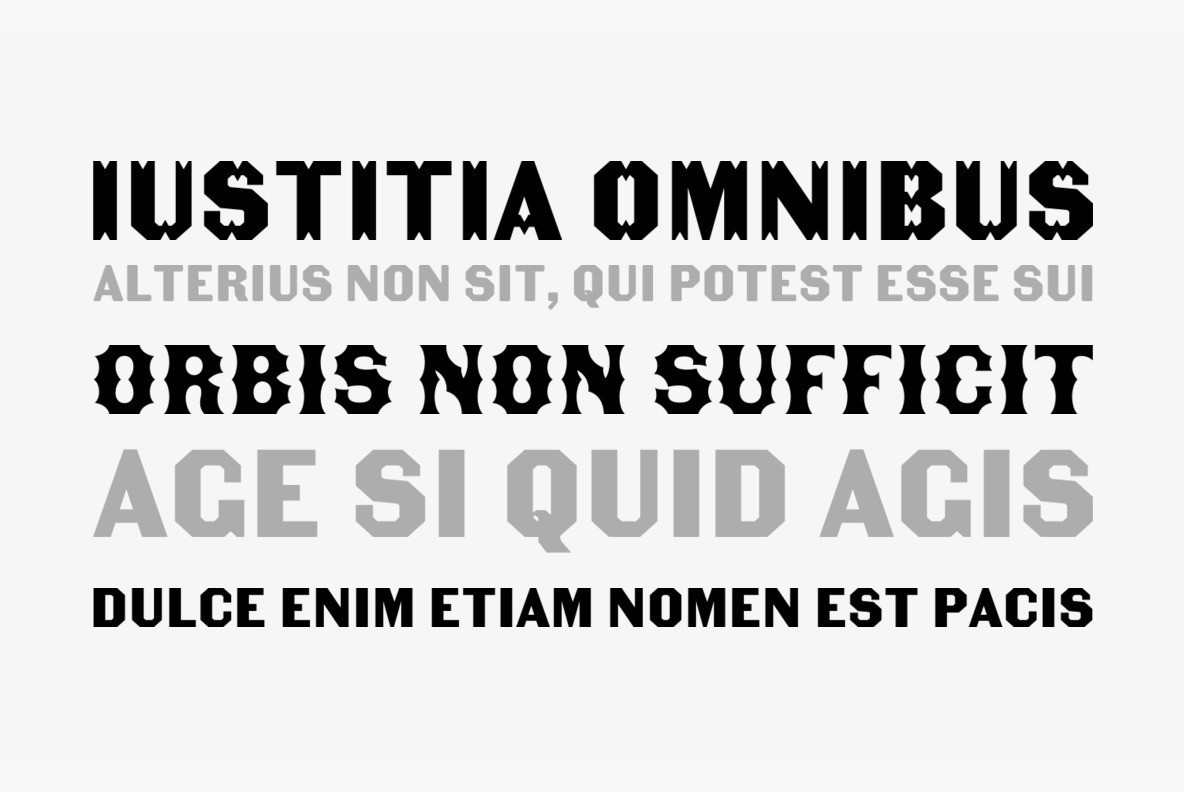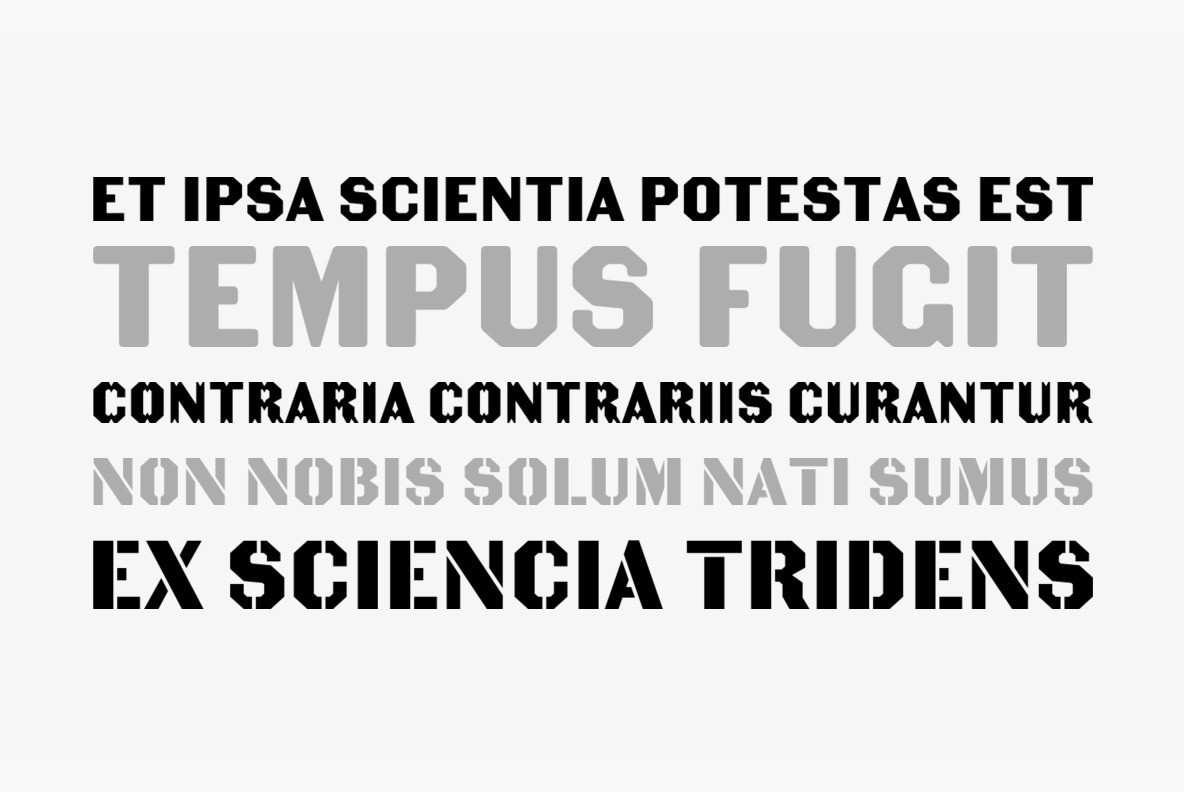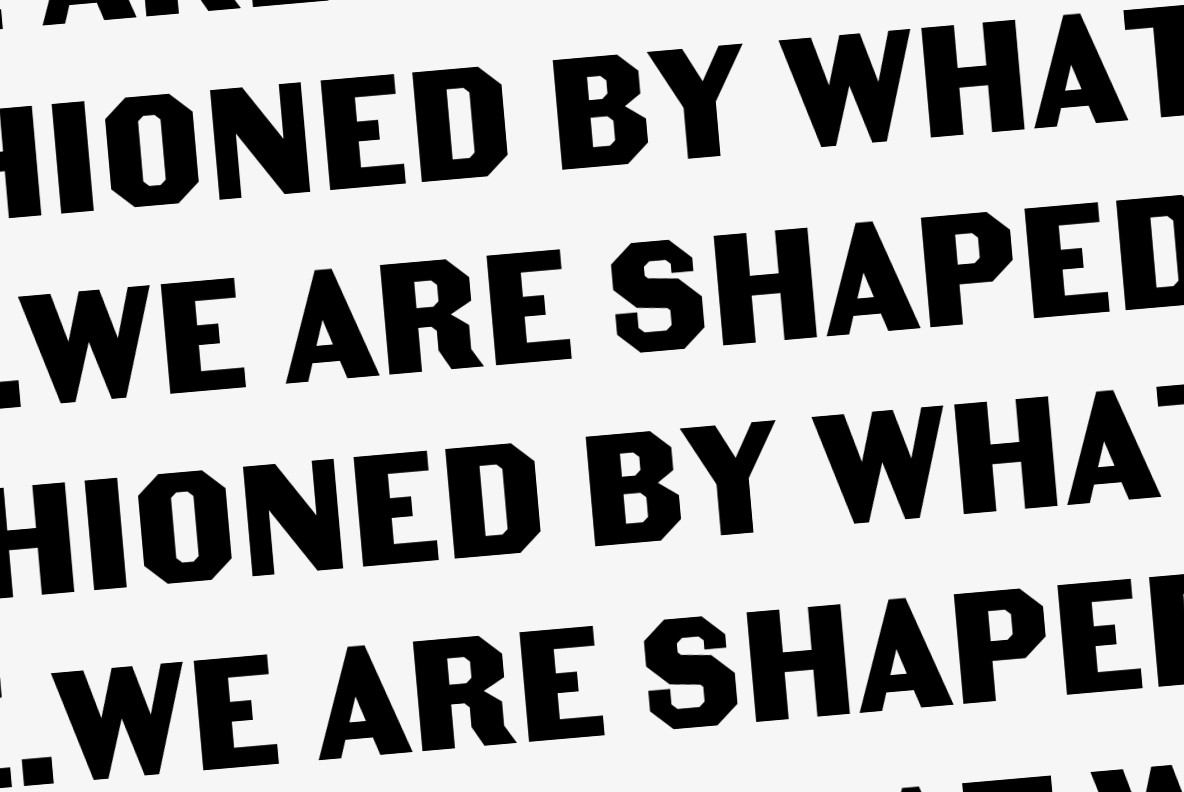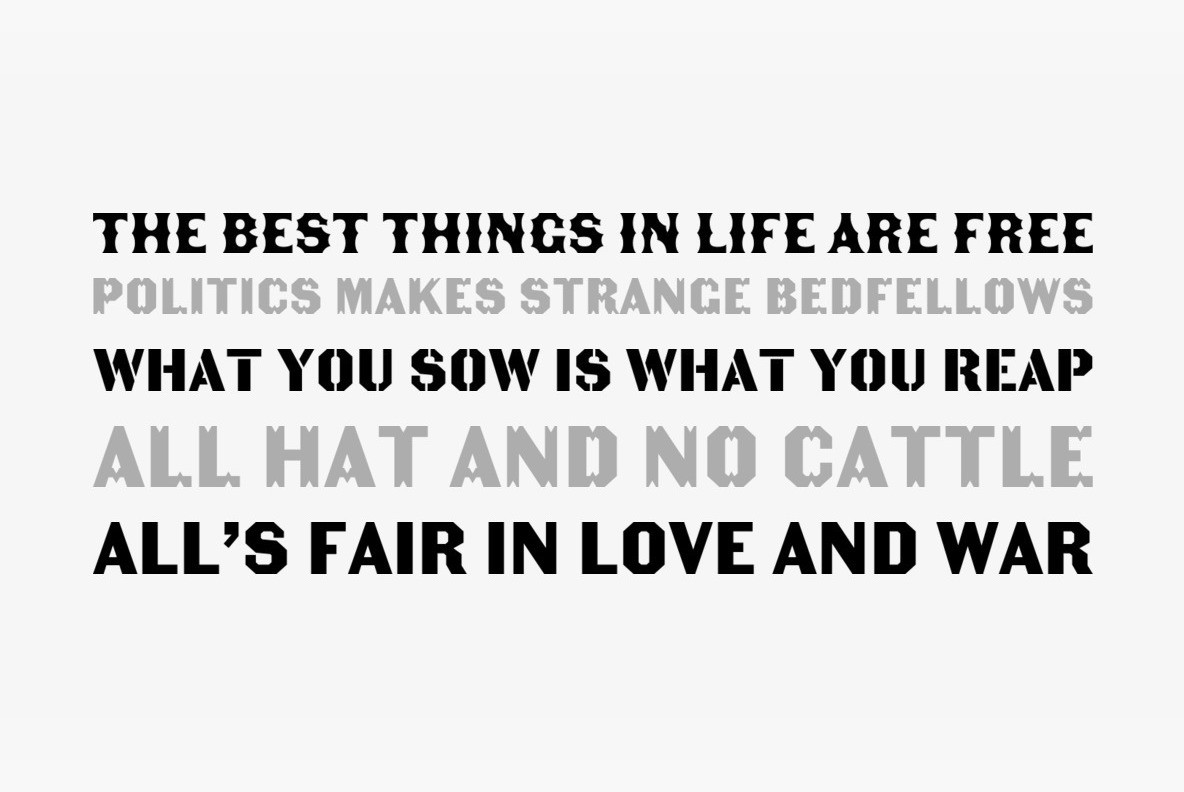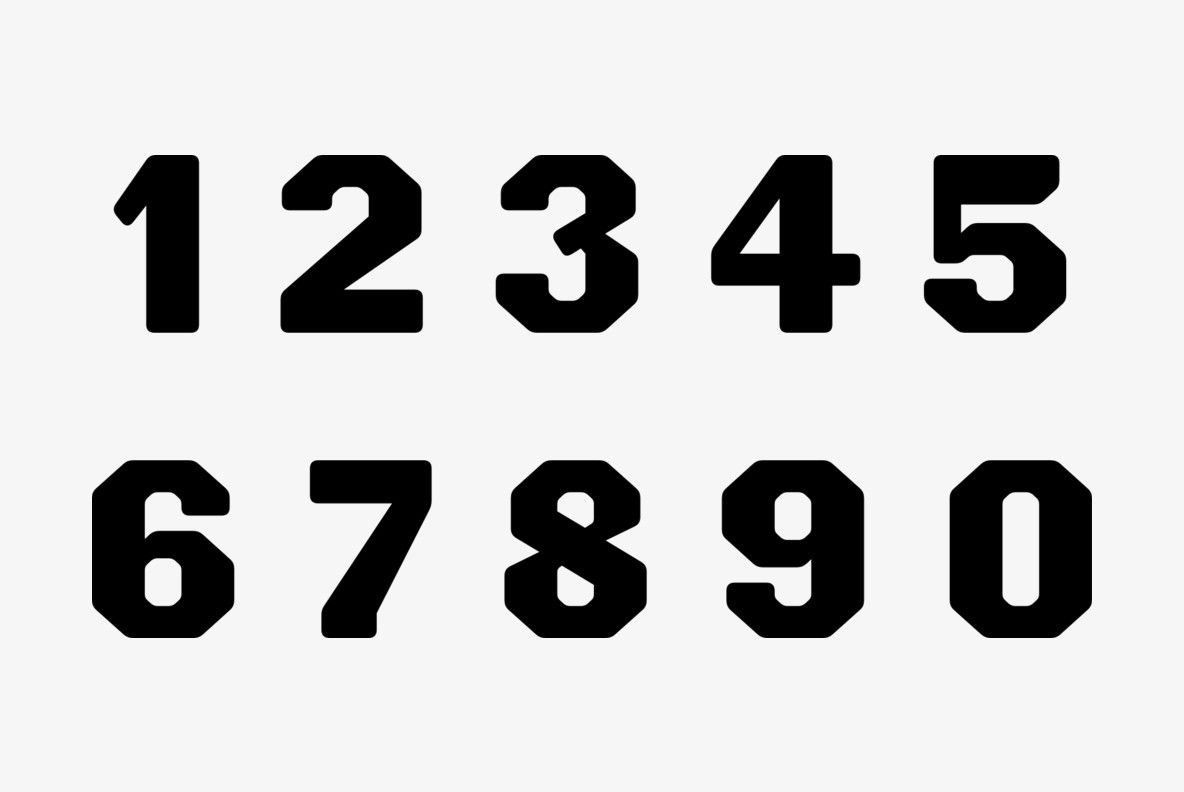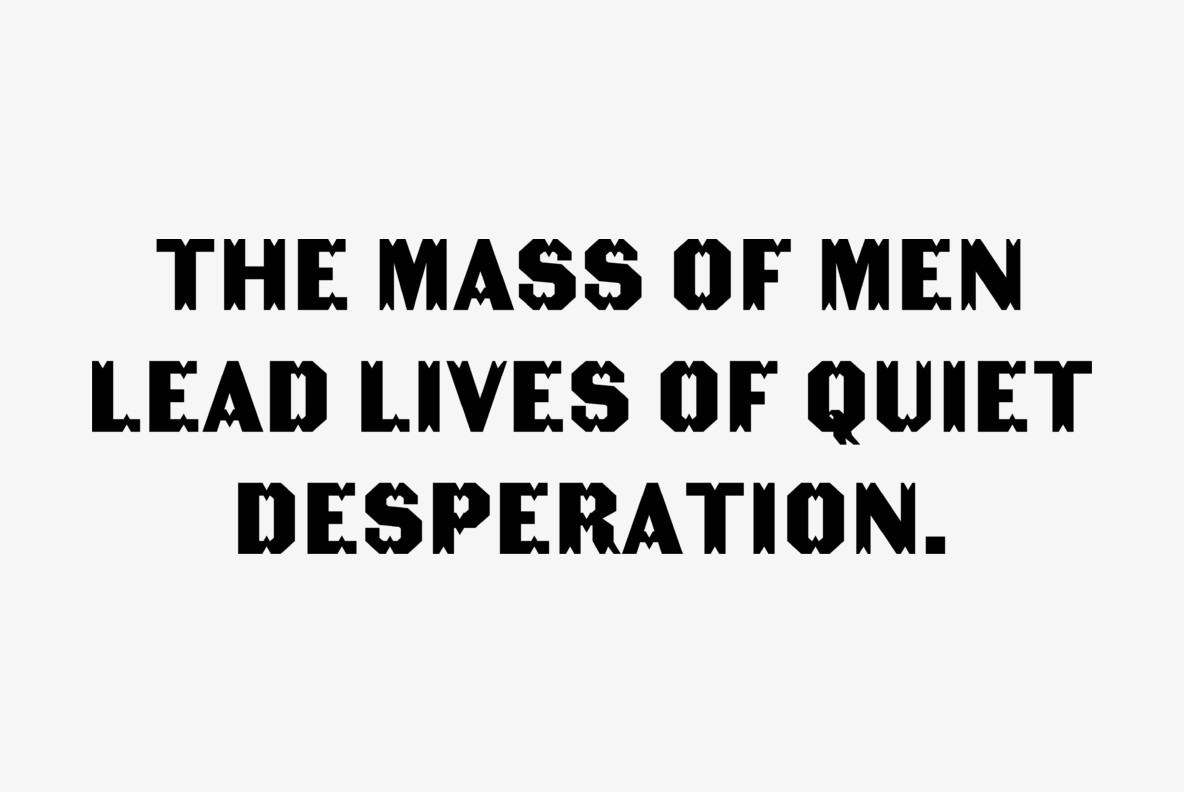
Becker Gothics Font
Becker Gothics Concave
Becker Gothics Egyptian
Becker Gothics Egyptian Rounded
Becker Gothics Stencil
Becker Gothics Tuscan
The Becker Gothics pay homage to the nineteenth century American lettering master George Becker. Designer James Puckett has given new life to the ingenious gothic alphabets found in Becker’s 1854 lettering manual Ornamental Penmanship. Use this quintet of typographic voices to evoke vintage engraving, lithography, signs, and wood type.